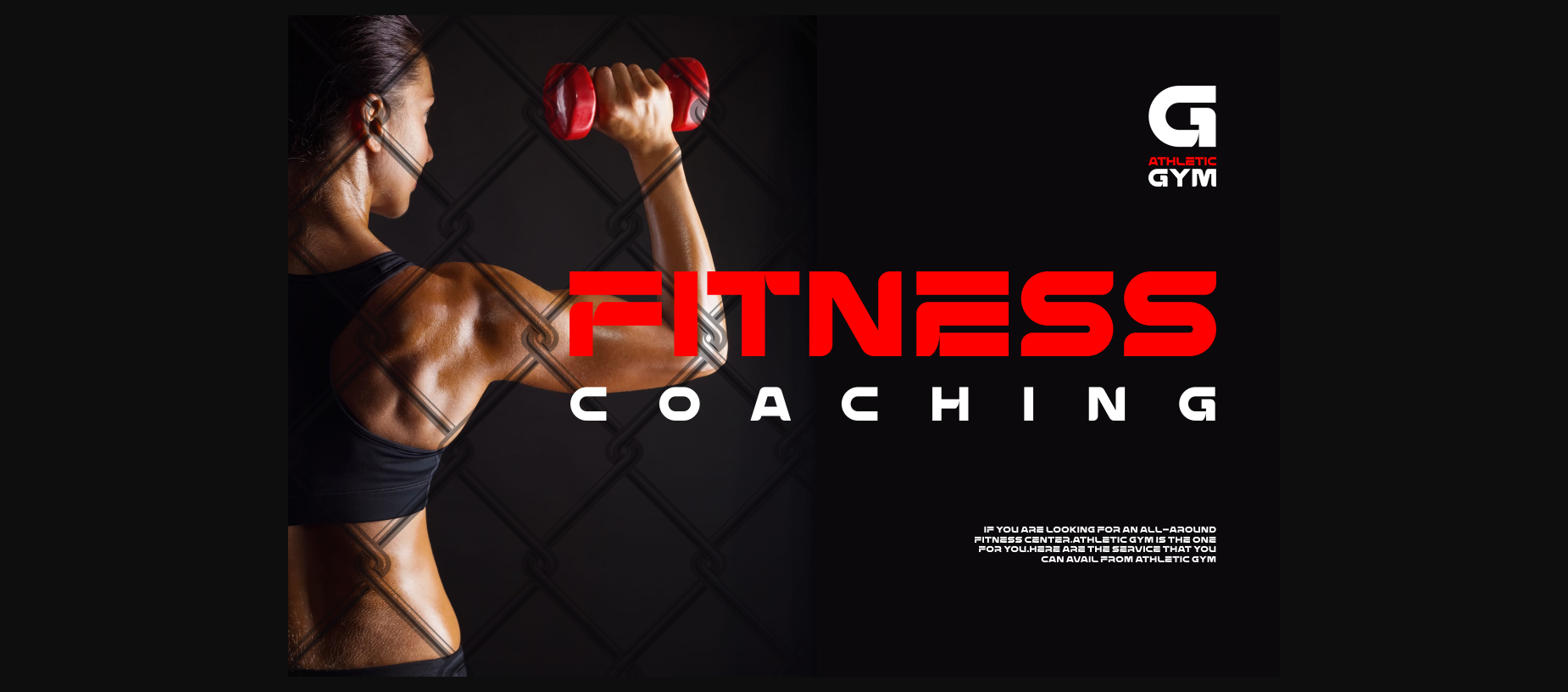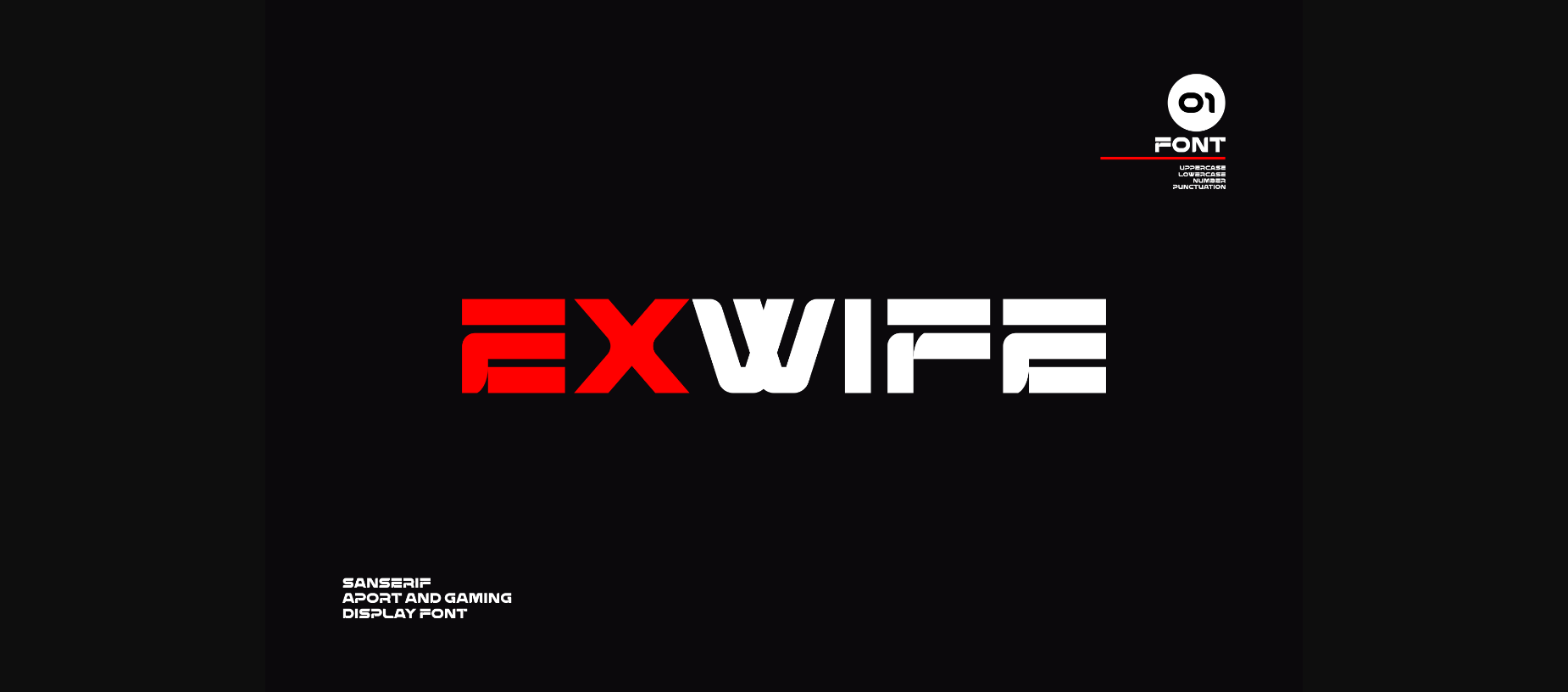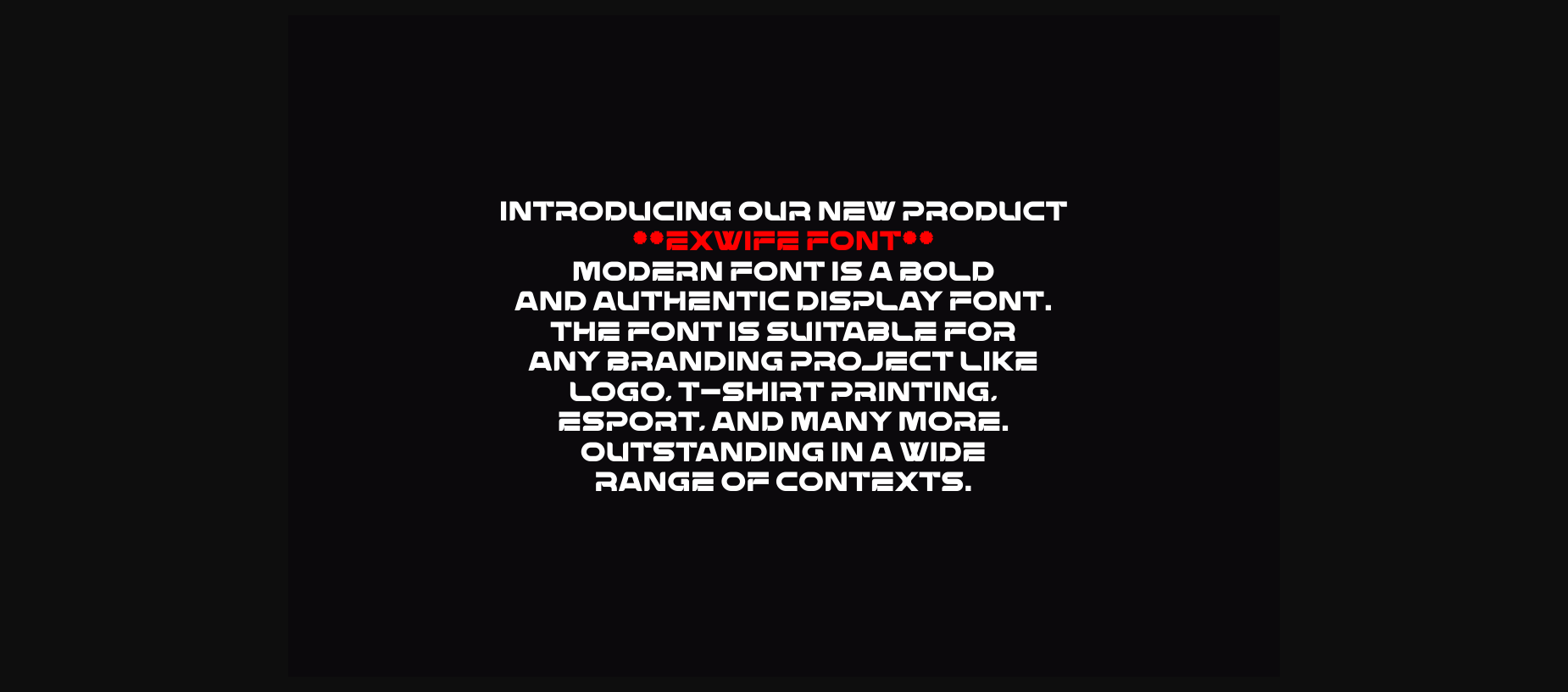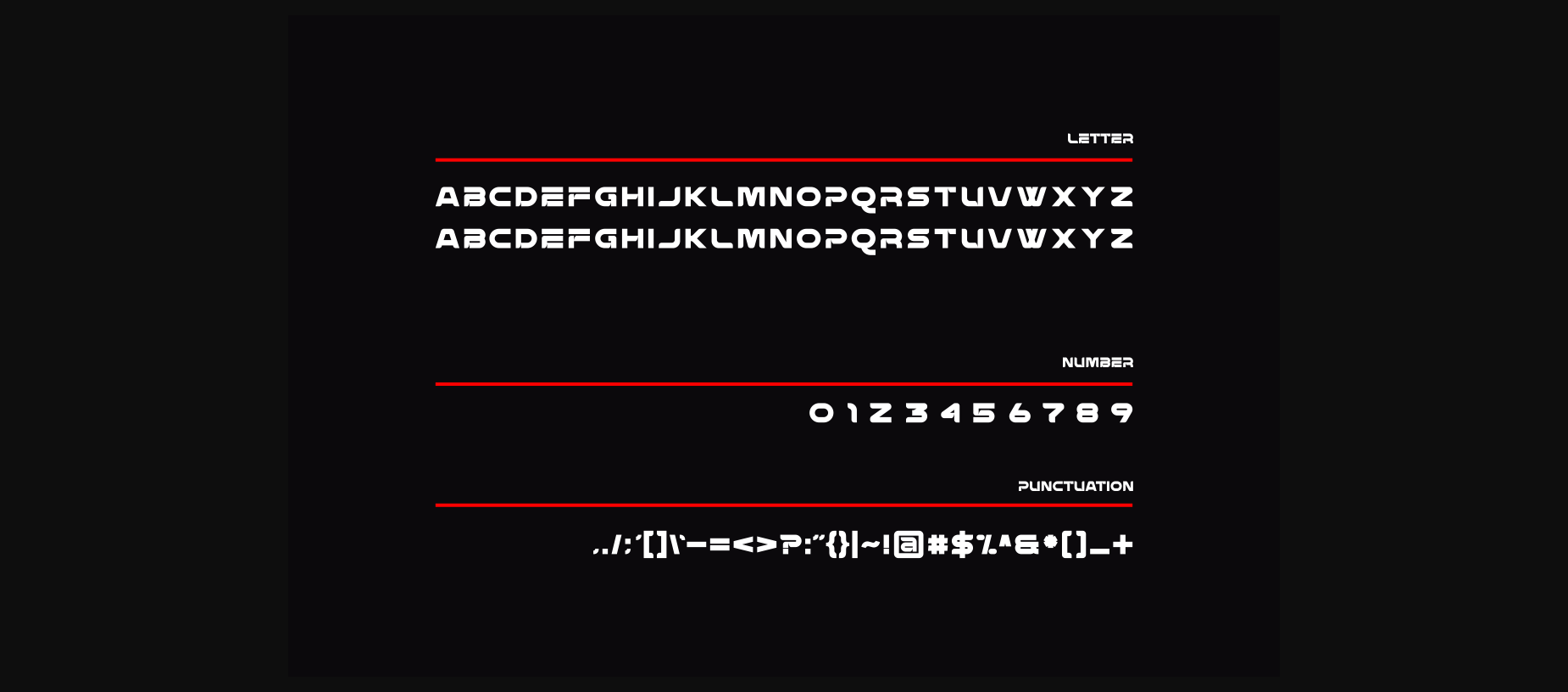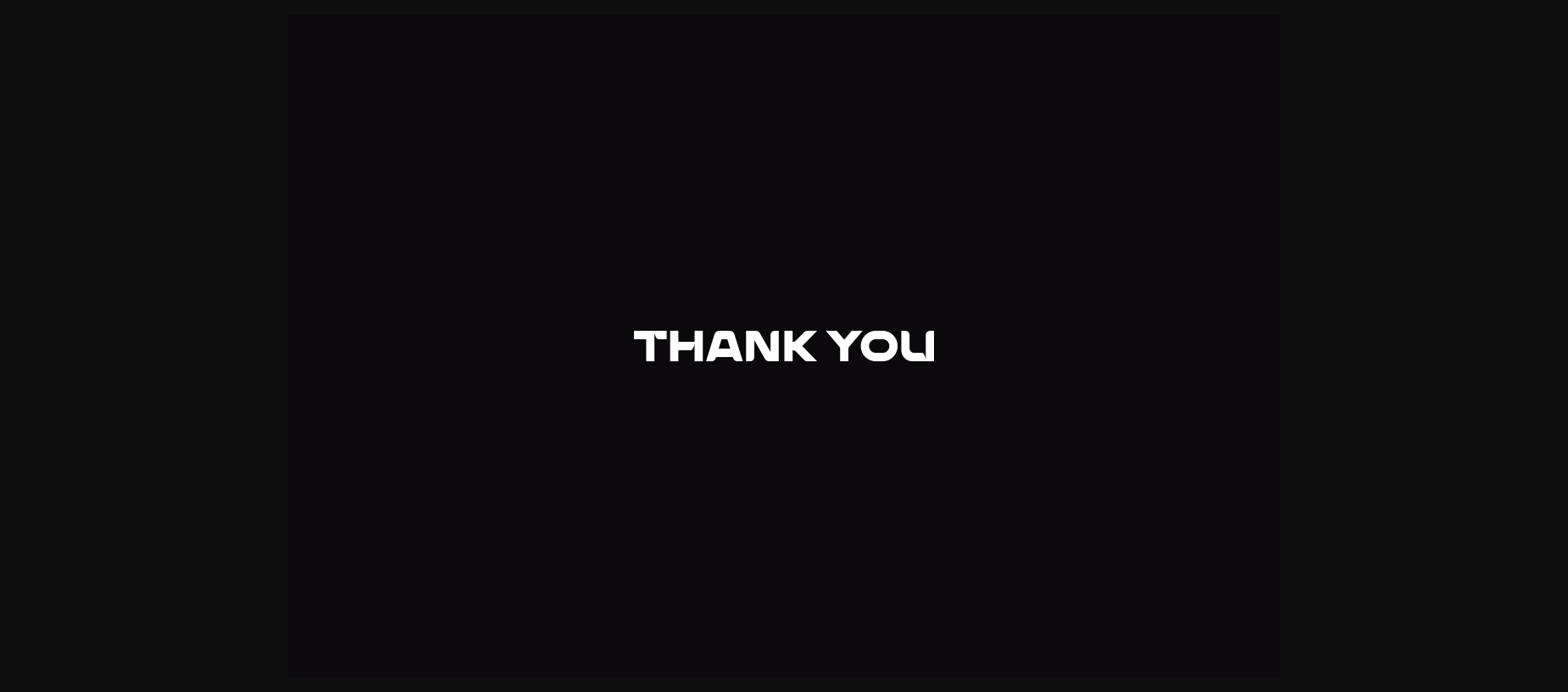
Exwife Font
About Exwife Font
Exwife is a sleek sans-serif font that embodies the essence of futurism. With sharp, minimalist lines and a bold presence, it evokes a sense of forward-thinking sophistication, making it perfect for contemporary design projects.